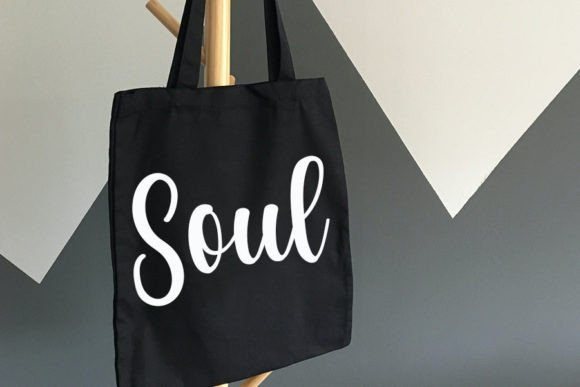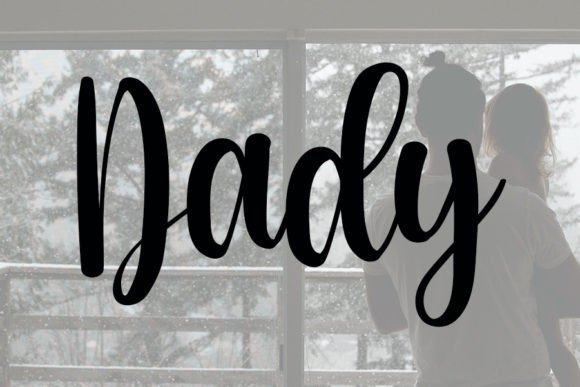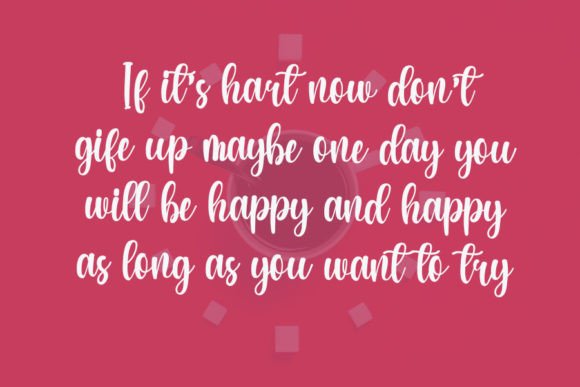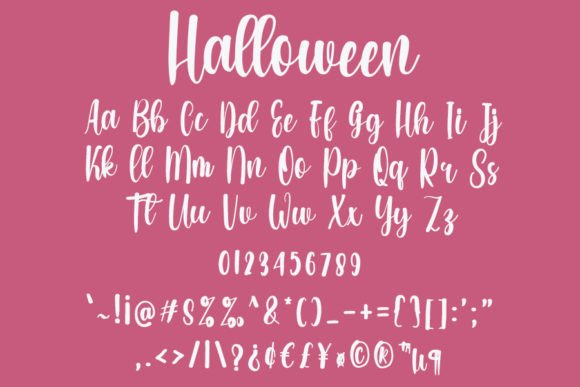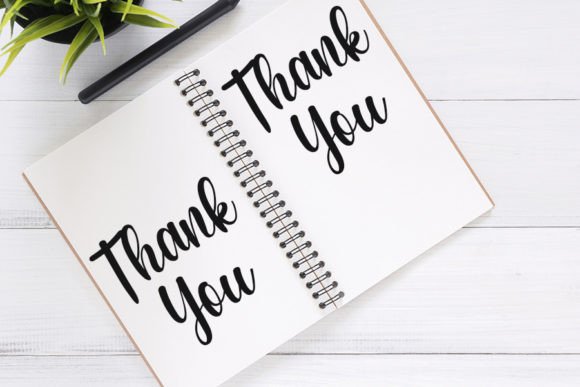
Halloween Font
About Halloween Font
Seazaa is a delightful and easygoing handwritten font that radiates positivity and a carefree spirit. This font offers a versatile option for a wide array of design concepts, encompassing quotes, watermarks, logos, storybooks, invitations, and many other creative endeavors.
Seazaa’s relaxed and friendly demeanor makes it ideal for crafting inspirational quotes and messages. Its handwritten charm adds a warm and personal touch to your words, making them more impactful and uplifting.
For watermarks, Seazaa can subtly enhance your images or documents while conveying a sense of laid-back elegance. It ensures your work is uniquely yours while maintaining a relaxed and approachable vibe.
Logos created with Seazaa exude a sense of friendliness and authenticity. This font’s casual yet stylish script can effectively represent brands that prioritize a welcoming and down-to-earth image.
In the context of storybooks, Seazaa contributes to a friendly and inviting reading experience. Its handwritten style resonates with readers, especially in children’s books, creating a connection between the text and the audience.
Invitations take on a relaxed and joyful tone with Seazaa. Whether it’s for weddings, parties, or special events, this font adds a touch of positivity and informality to your invitations, setting the mood for a memorable celebration.
Seazaa’s adaptability and good-natured vibe make it suitable for a wide range of design projects. Whether you’re looking to infuse your work with a cheerful and relaxed spirit or seeking a font that effortlessly communicates approachability and friendliness, Seazaa is an excellent choice.
In summary, Seazaa is a versatile and cheerful handwritten font that can enhance the visual appeal of your designs in various contexts. Its ability to convey a good-mood and relaxed atmosphere makes it a valuable asset for designers and creatives looking to inject positivity and approachability into their projects.